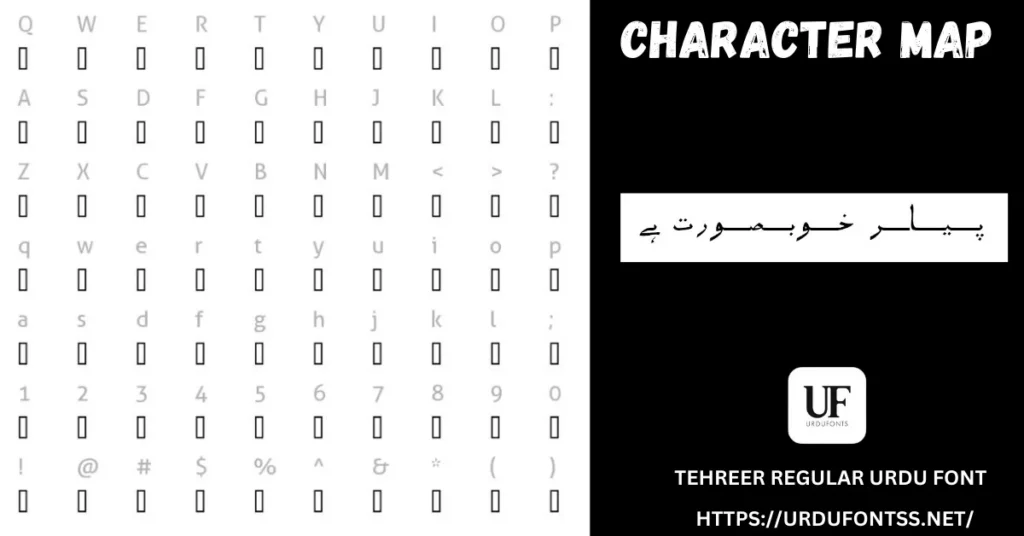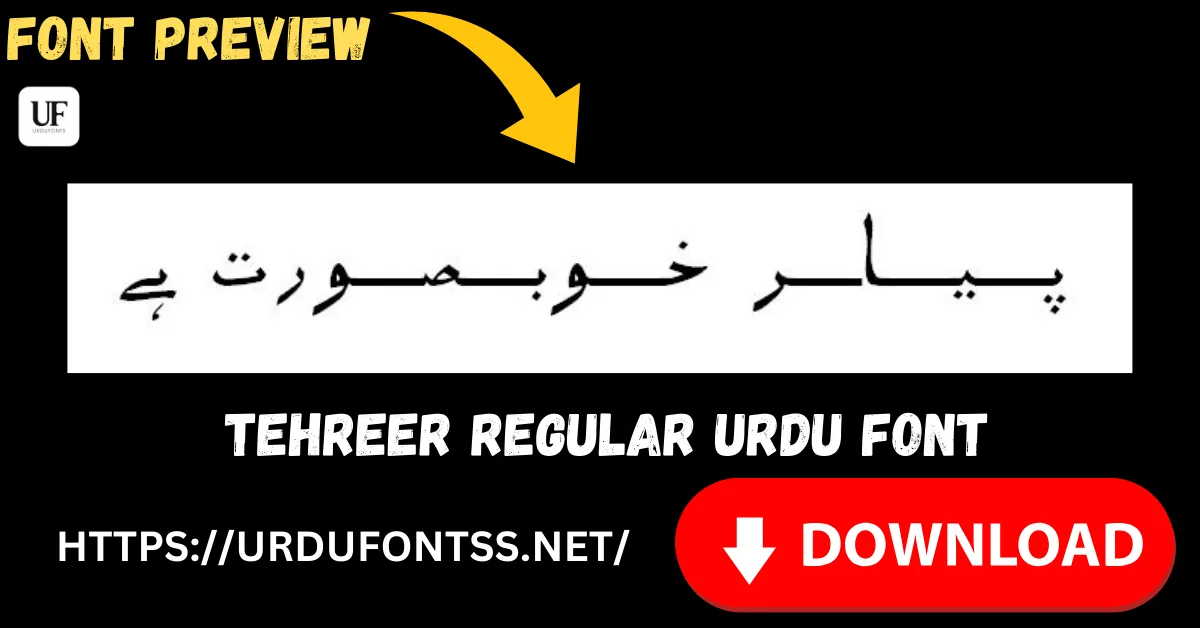
Tehreer Regular is a clean, balanced Urdu typeface with smooth, even letterforms — a modern text font for designing and everyday typing, without calligraphic decoration getting in the way. This is Version 1.0.0, with 689 glyphs and installable embedding, in a ZIP of about 72.5 KB. Download the TTF free below and install it on Windows, Mac or Android.
The sample line shows the font’s character: level, unhurried strokes with generous spacing — closer to a well-set book page than to calligraphy. Note that many Latin slots in the map are empty: Tehreer is drawn Urdu-first, so set long English passages in a standard font and keep Tehreer for the Urdu.
What Makes Tehreer Regular Different
- Clean before decorative: where most Urdu fonts compete on flourish, Tehreer competes on clarity — balanced letterforms and even spacing that stay comfortable in paragraphs, captions and interface text.
- 689 glyphs, verified in the file: the live page left the count “Not Specified”; the downloaded TTF itself holds 689 glyphs — solid Urdu/Arabic-script coverage for real documents.
- Smooth multilingual behaviour: as a Unicode TrueType font it keeps Urdu text editable and correctly joined in Word, design apps and browsers, and pairs cleanly with a Latin font for mixed layouts.
- Installable embedding: documents and PDFs you export carry the font with them, so shared files keep their look on other machines.
- One known version: Version 1.0.0 is the release in circulation — no weight family to manage, one file to install.
Best Uses for Tehreer Regular
- Everyday Urdu typing — documents, letters and assignments in MS Word with a calm, modern line.
- Graphic design — posters, flyers and social graphics in Photoshop, Illustrator or Canva where the Urdu must read instantly.
- Content creation — blog posts, newsletters and web articles set in a clean screen-friendly face.
- Mobile video and photo editing — titles and captions in PixelLab, CapCut and KineMaster through the in-app method below.
- Presentations and teaching material — slides and handouts where clarity beats decoration.
Tehreer Regular vs Similar Fonts
| Font | How It Differs |
|---|---|
| Jameel Noori Nastaleeq | The classic sloping Nastaliq of Pakistani print — calligraphic and tall. Choose Jameel for the traditional newspaper look; Tehreer for a flatter, modern, screen-first line. |
| Al Qalam Quran Majeed | A Quranic Arabic face built for scripture with full marking. Tehreer is a general Urdu typeface — use Al Qalam for Quran text, Tehreer for everything else. |
| AA Sameer Almas | Another clean Naskh for documents and InPage, with 431 glyphs. Tehreer carries more glyphs (689) and a more contemporary feel; set the same paragraph in both and keep the calmer line. |